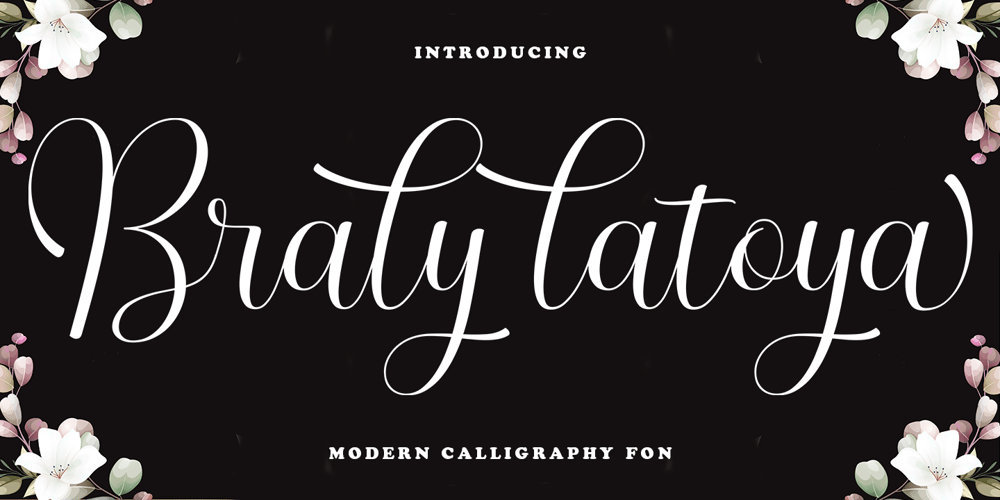
Braly Latoya Font Family was designed by Wais Alqarni and published by Ws Studio. Braly Latoya contains 1 styles and family package options. Braly latoya Script is an elegant calligraphy font, including Regular and Italic. This font is casual and pretty with a doodle. Can be used for various purposes. such as logos, product packaging, wedding invitations, branding, headlines, signage, labels, signatures, book covers, posters, quotes, and others.The Braly latoya script featuring an alternative to OpenType styles, binders and International support for most Western Languages is included. To enable OpenType Stylistic alternates, you need a program that supports OpenType features such as Adobe Illustrator CS, Adobe Indesign & CorelDraw X6-X7, Microsoft Word 2010 or a later version. How to access all alternative characters using Adobe Illustrator:Braly latoya Script is coded with PUA Unicode, which allows full access to all additional characters without having to design special software. Mac users can use Font Book, and Windows users can use Character Map to view and copy any of the additional characters to paste into your favorite text editor / application. How to access all alternate characters, using the Windows Character Map with Photoshop: